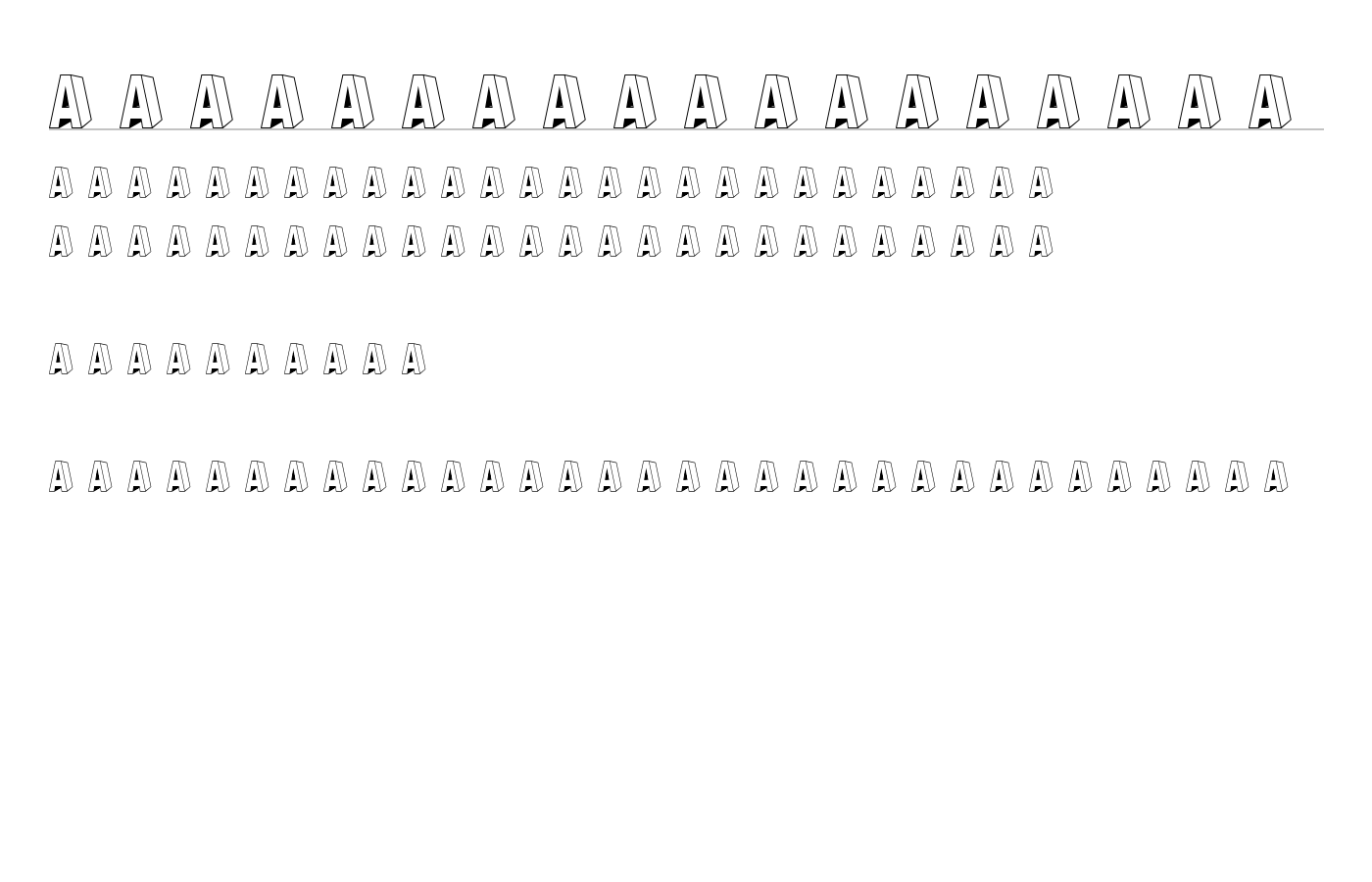
A Ryal Black Block is a bold, sans-serif display font with a strong geometric structure and three-dimensional block shading that creates a striking, dynamic effect. Its thick, condensed letterforms and sharp edges convey a powerful, modern vibe, making it ideal for attention-grabbing headlines, logos, and posters where impact and style are key. This font works well for branding that aims to be edgy and contemporary while maintaining clear legibility.
A Ryal Black Block Font
About A Ryal Black Block Font
| Font family | A Ryal Black Block Font |